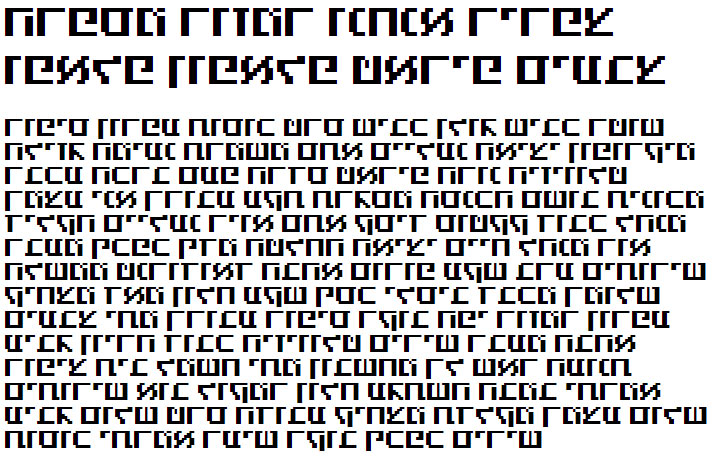
✓ As a soldier, I got to travel by train many times. The new guidance system is made of 8 by 8 matrix letters. What makes them unique is the way they tried to imitate the "Miriam" typeface, which is used in the rail's signage. This font is the fruit of a long rail journey during which I tried sketching all letters. In general, this is a more or less truthful duplication, offered to you in a dot-matrix version and a full version. "Hatachana Habaa" is "The Next Station" in Hebrew.
X_Hatachana Habaa Full Hebrew Font